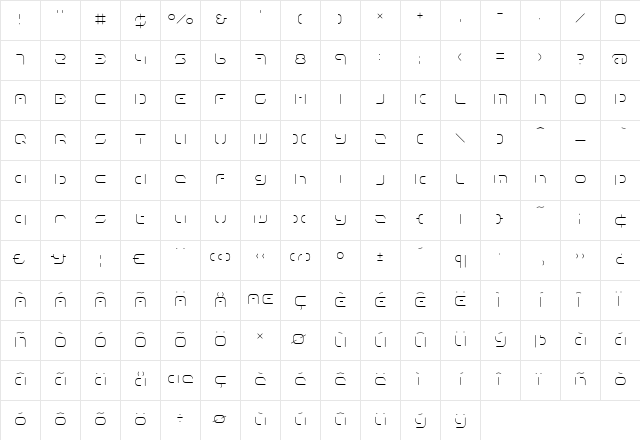
Term Regular
Design Context for Term
Term is a composed and adaptable typeface that performs quietly and consistently across a wide range of design contexts.